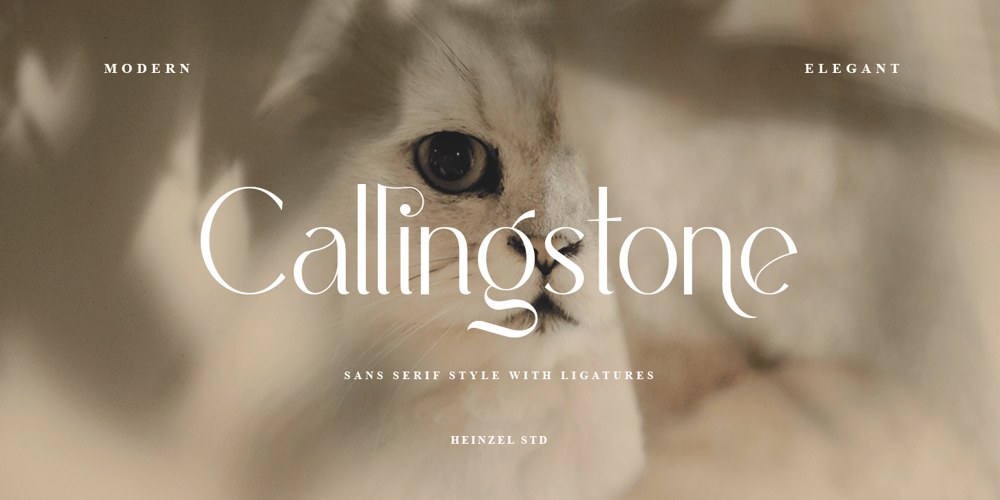
Callingstone Font Family was designed by Nofi Sofyan Hadi and published by Heinzel Std. Callingstone contains 2 styles and family package options. Callingstone is an elegant and modern sans serif font. Fall for its ravishing style and use it to create gorgeous wedding invitations, beautiful stationary art, eye-catching social media posts, and much more! This font is PUA encoded which means you can access all of the amazing glyphs and ligature with ease!Features : Callingstone Regular, sans serif font All Caps, Numerals and more punctuations. Multilingual support for various languages Open Type Format